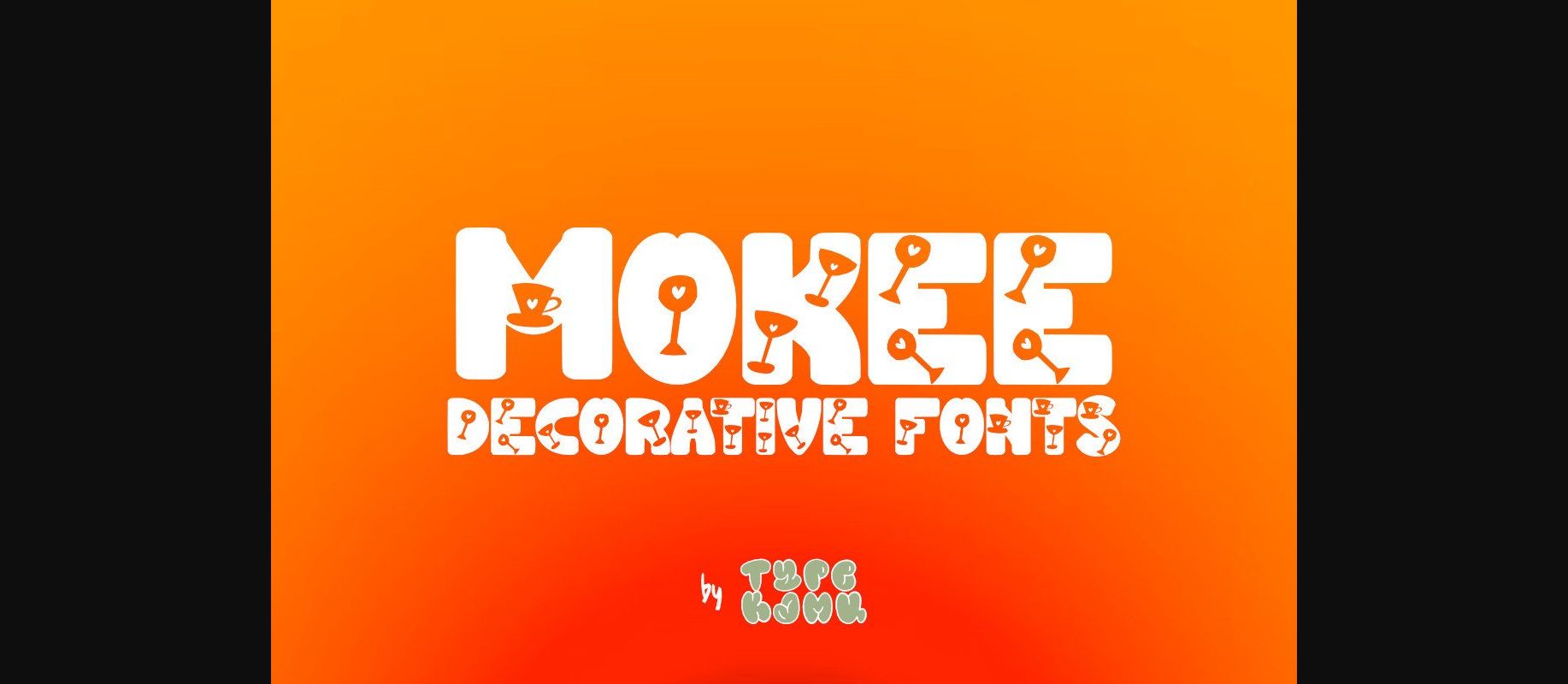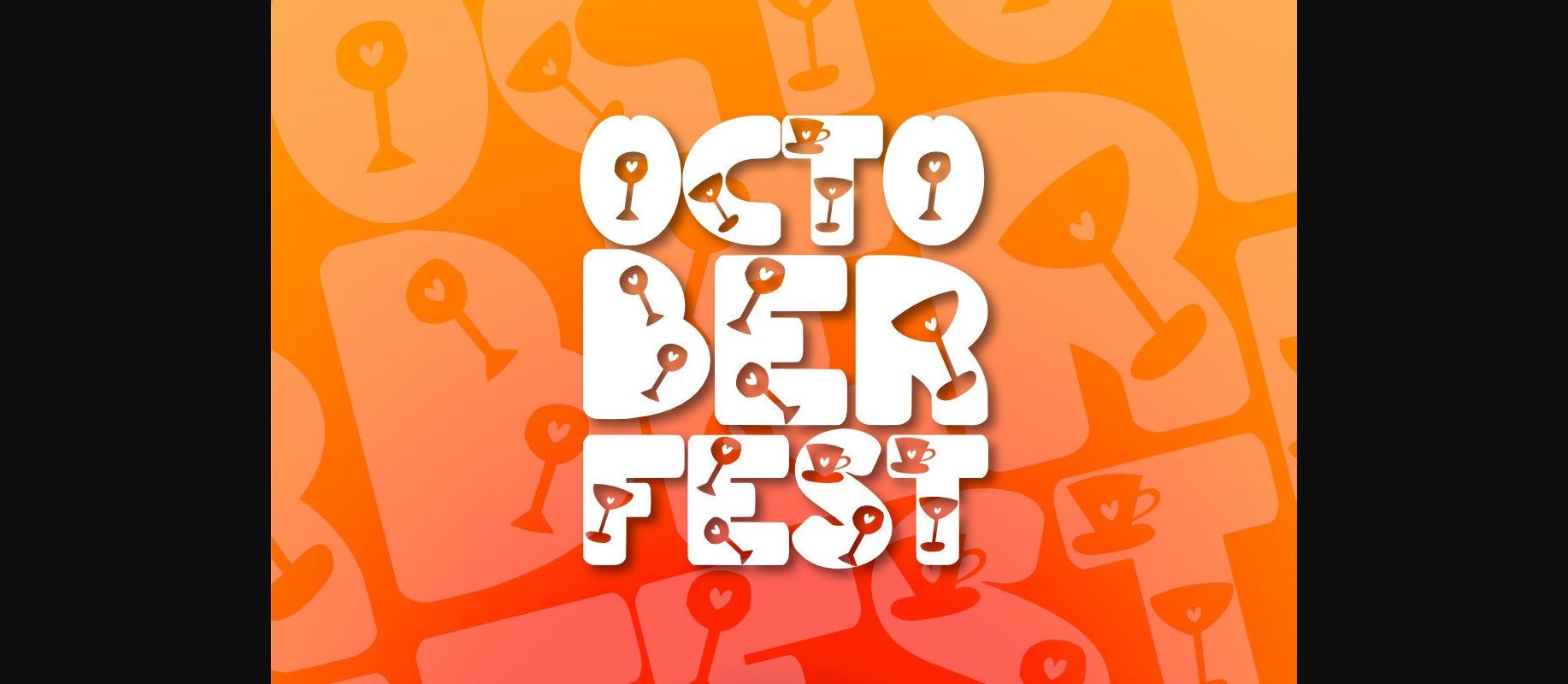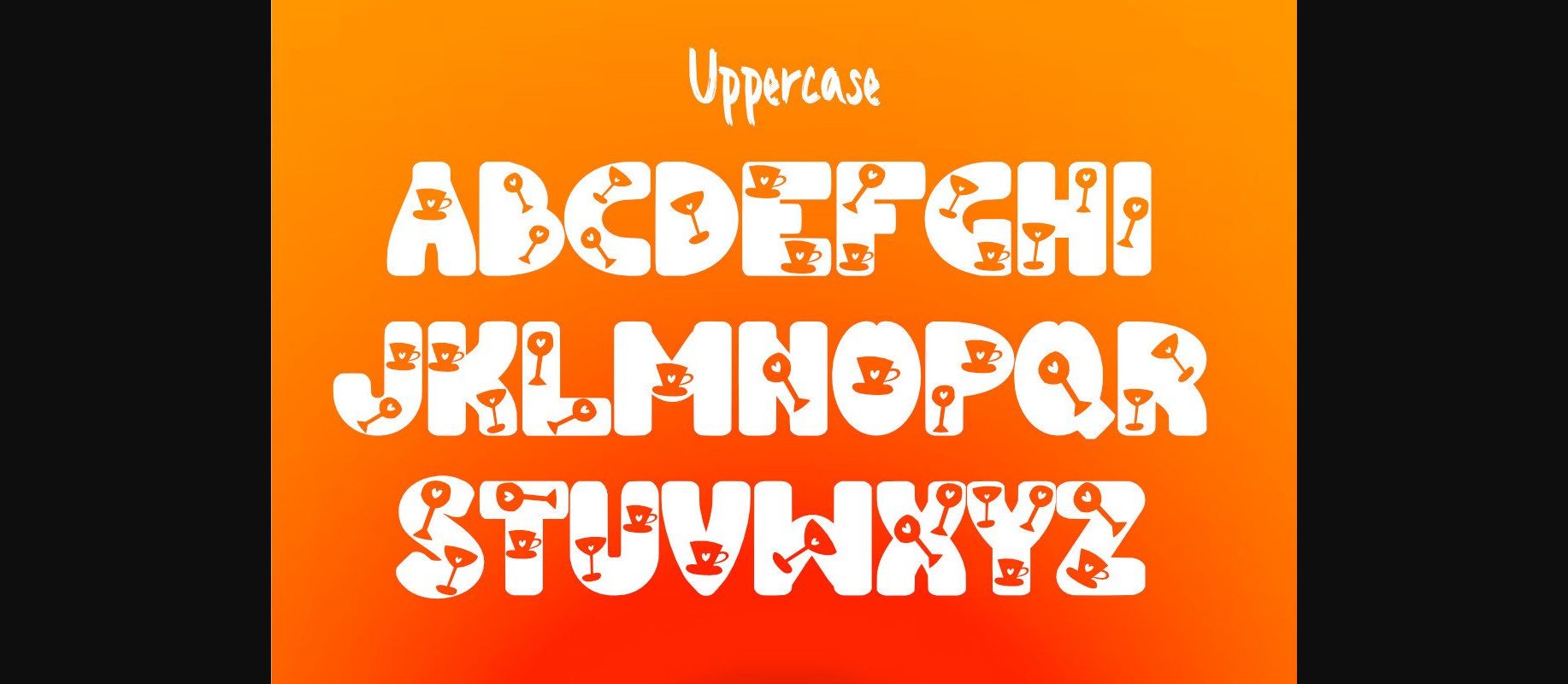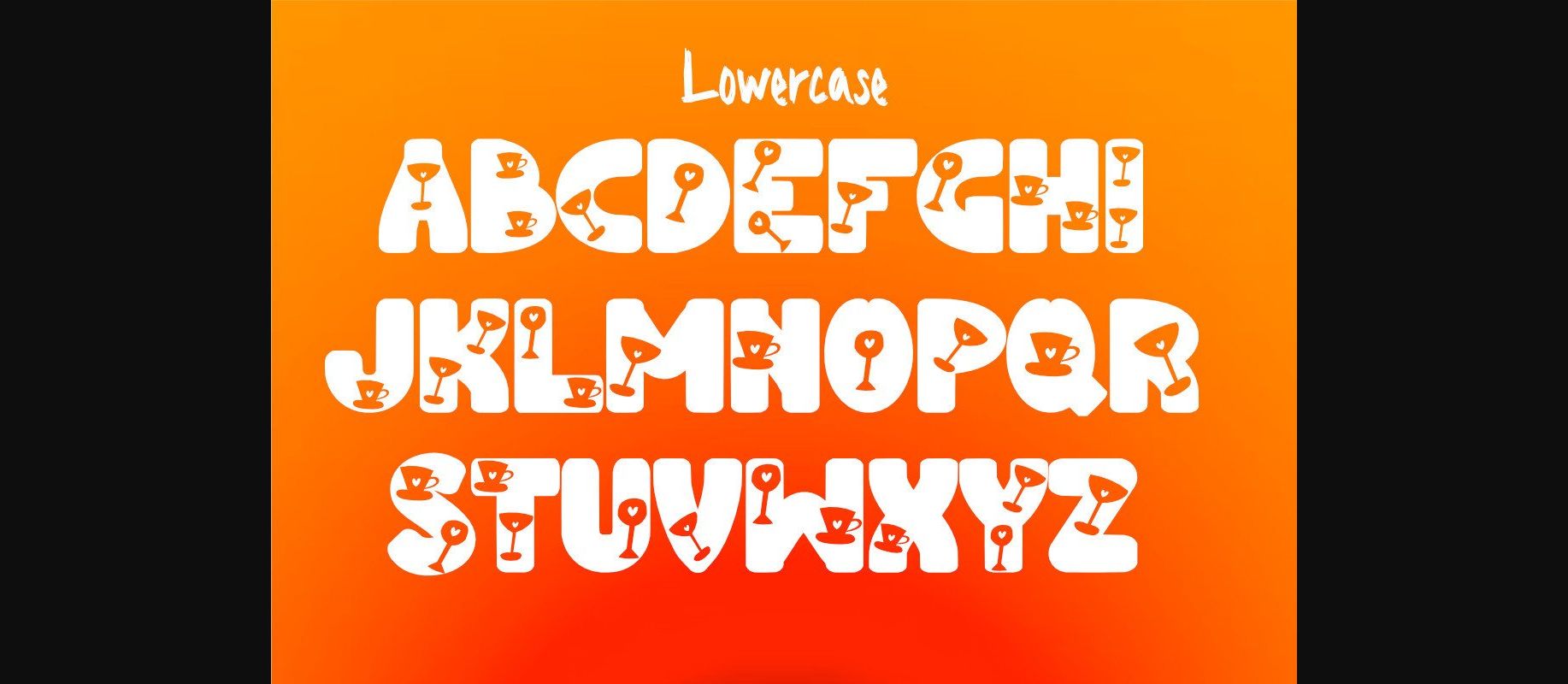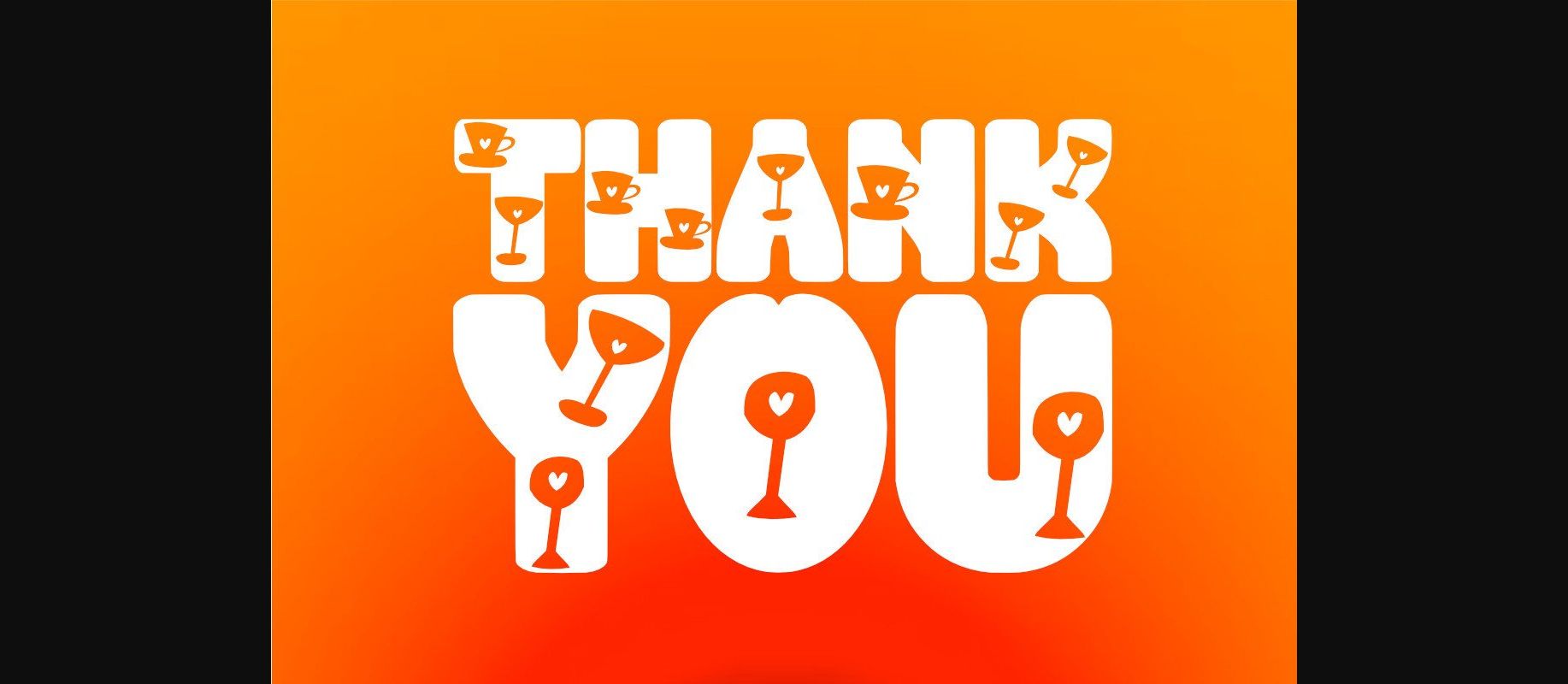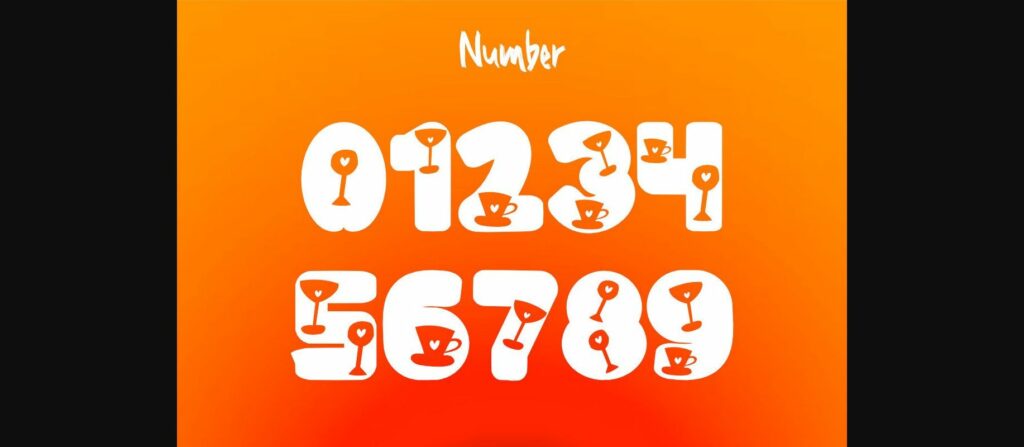
HomeDecorative FontsMokee Font Decorative Fonts Mokee Font FacebookXPinterestWhatsApp 1 of 8 ... Mokee Font Poster 2... Mokee Font Poster 3... Mokee Font Poster 4... Mokee Font Poster 5... Mokee Font Poster 6... Mokee Font Poster 7... Mokee Font Poster 8... About Mokee Font Mokee is a decorative font with a unique and cute party drink theme. This font is perfect for printing needs such as t-shirts, mugs, tumblers, book covers, posters, and many other creative ideas. DOWNLOAD NOW People also explored Christmas Font Willy Love Font Callonsky Font Amnesia Font Holiday Font Stamp Font Magaretha Font Mezza Extra Black Font Copacetic Font 278 0 TagsMokeeMokee Font Previous articleSuntree FontNext articleAvocado Font LEAVE A REPLY Cancel reply Comment: Please enter your comment! Name:* Please enter your name here Email:* You have entered an incorrect email address! Please enter your email address here Website: Save my name, email, and website in this browser for the next time I comment. Personal Use Free Miracles Personal Use Free Read more about this font Unispace Personal Use Free Read more about this font The Shocker Personal Use Free Read more about this font Omira Personal Use Free Read more about this font BLOG Fonts That Capture the Spirit of New York City New York City is more than just a place—it’s an experience, a rhythm, a visual language... The 10 Best Handwriting Fonts to Add Personality to Your Designs Transform Your Website: Elevate Your Typography with 7 Best Web Font Generators How to Cut Any Font on Cricut: Convert a Font to SVG (Free)